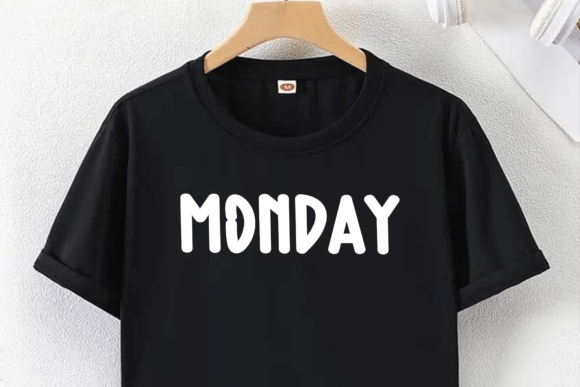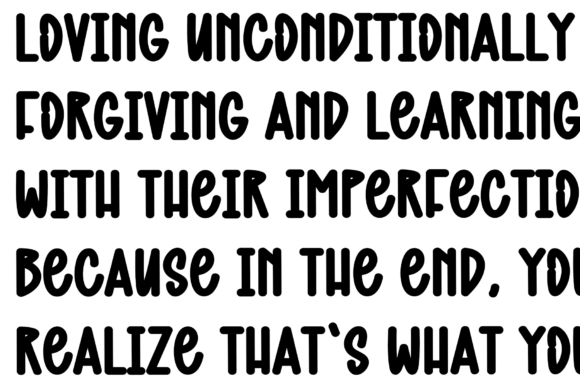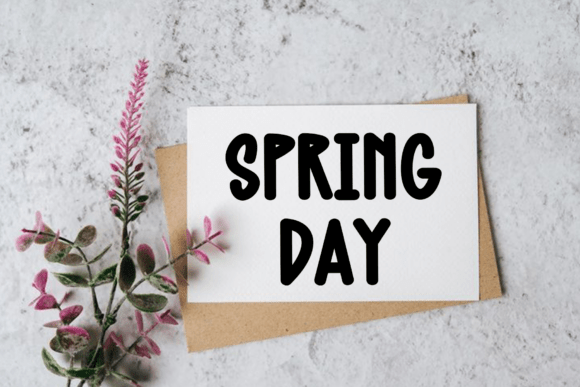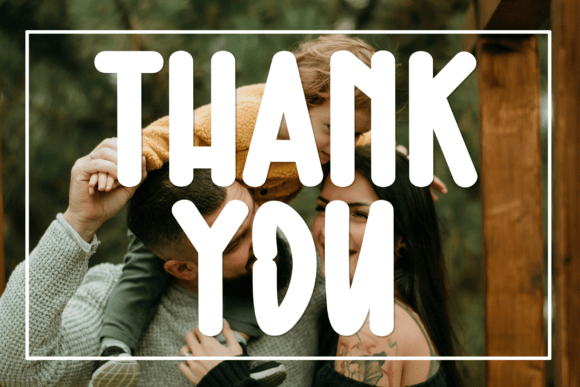
Creating Memories that Last a Lifetime
Have you ever found yourself lost in a family photo album, reminiscing about cherished moments and special occasions? Perhaps it was a birthday party, a family vacation, or a quiet evening spent together. Whatever the memory, it’s the love and laughter that makes it truly unforgettable.
That’s exactly what the Family Time Font is designed to capture – the warmth and authenticity of life’s precious moments. This heartwarming display typeface is perfect for designers who want to add a personal touch to their projects, from independent lifestyle blogs to community event branding.
With its soft edges and gentle, hand-drawn bounce, the Family Time Font is a valuable addition to any designer’s toolkit. Whether you’re creating a family photo album or a social media header, this font is sure to bring a sense of joy and approachability to your work.
Family Time Font Key Features
- Font Family: Family Time Font offers a range of 6 fonts, each with unique characteristics and styles.
- Unique Characteristics: Features a playful, handwritten style with subtle variations in letterforms and flourishes, perfect for adding a touch of personality to designs.
Review of “Family Time Font”
Overall, I’m impressed with the “Family Time Font” – it’s a beautiful, versatile font that can add a personal touch to any project.
Here are some things that really stand out:
- ✨ The font’s playful, handwritten feel is perfect for projects that need a warm and inviting tone.
- ✨ The font is highly customizable, making it easy to adjust to fit different design styles and themes.
- ✨ The font includes a wide range of characters and symbols, including international characters and accents.
- ⚠️ The font may not be the best choice for projects that require a more formal or professional tone.
- ⚠️ Some users may find the font’s handwritten feel to be too cursive or ornate for certain projects.
Overall, I think “Family Time Font” is a great choice for designers who want to add a personal touch to their projects. While it may not be the best fit for every project, it’s a versatile and customizable font that can help bring a design to life.
Family Time Font is suitable for a wide range of applications, including:
- Family newsletters and updates
- Personalized gifts and cards
- Business presentations and reports